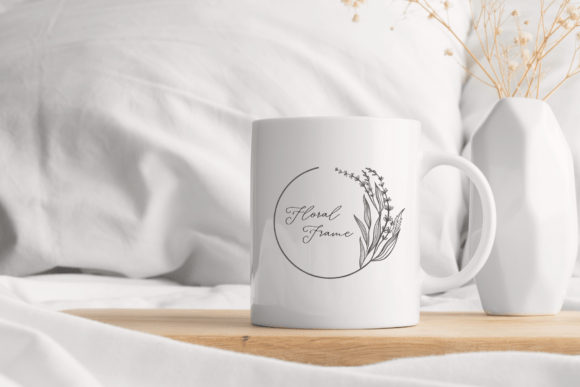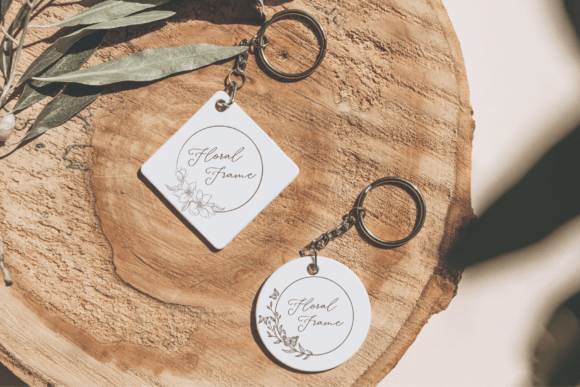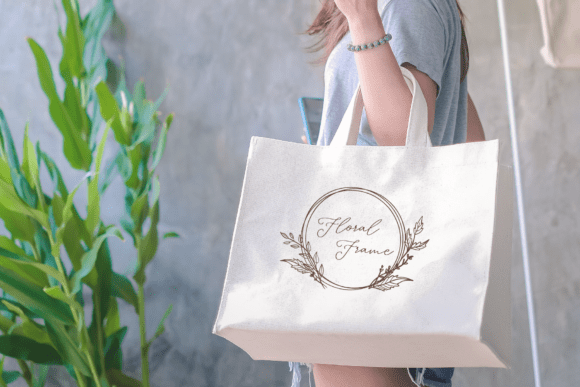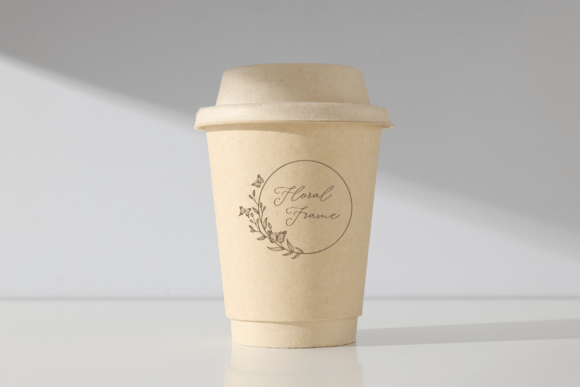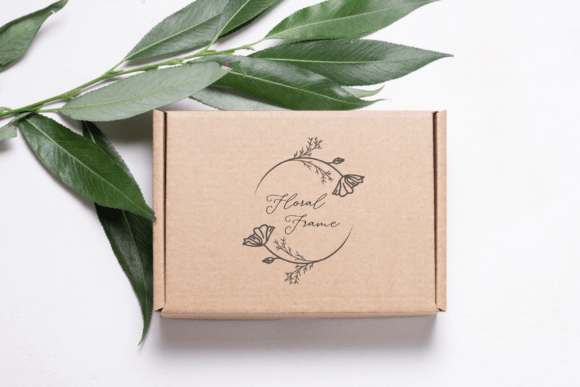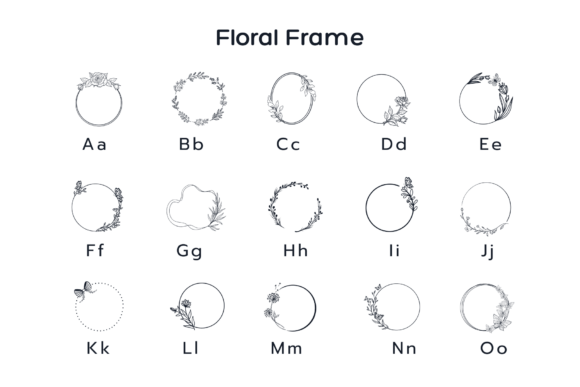
The Elegance of Floral Frame Font: A Designer’s Delight
I still remember the design project that led me to discover the Floral Frame Font. I was working on a custom wedding invitation for a client who wanted something elegant and sophisticated. As I scrolled through my font library, I stumbled upon this beautiful dingbat font featuring a variety of decorative wreaths and floral frames. It was love at first sight! ✨ The intricate details and delicate illustrations instantly elevated my design, and I knew I had found the perfect fit.
- ✨ Unique and elegant designs: Each glyph is a hand-drawn masterpiece, perfect for adding a touch of sophistication to any project.
- ✅ Versatile: From custom monograms to logos and invitations, Floral Frame Font is a versatile addition to any designer’s toolkit.
- 💫 Easy to use: With its intuitive design and compatibility with popular platforms, you can start creating stunning designs in no time.
While Floral Frame Font is an excellent addition to any design project, there are a few things to keep in mind: ⚠️
- 🤔 Limited character set: As a dingbat font, Floral Frame Font has a limited character set, which may require some creative workarounds for certain projects.
- ⚠️ May not be suitable for body text: Due to its decorative nature, Floral Frame Font is best used as an accent or headline font.
Floral Frame Font was created by a talented designer who drew inspiration from traditional floral arrangements and elegant calligraphy. With a passion for creating beautiful, unique designs, the designer spent countless hours crafting each glyph and illustration to ensure that every detail was perfect. The result is a stunning font that adds a touch of sophistication to any design project.
Q: What type of projects is Floral Frame Font best suited for?
A: Floral Frame Font is perfect for creating custom monograms, logos, invitations, and other design projects that require an elegant touch.